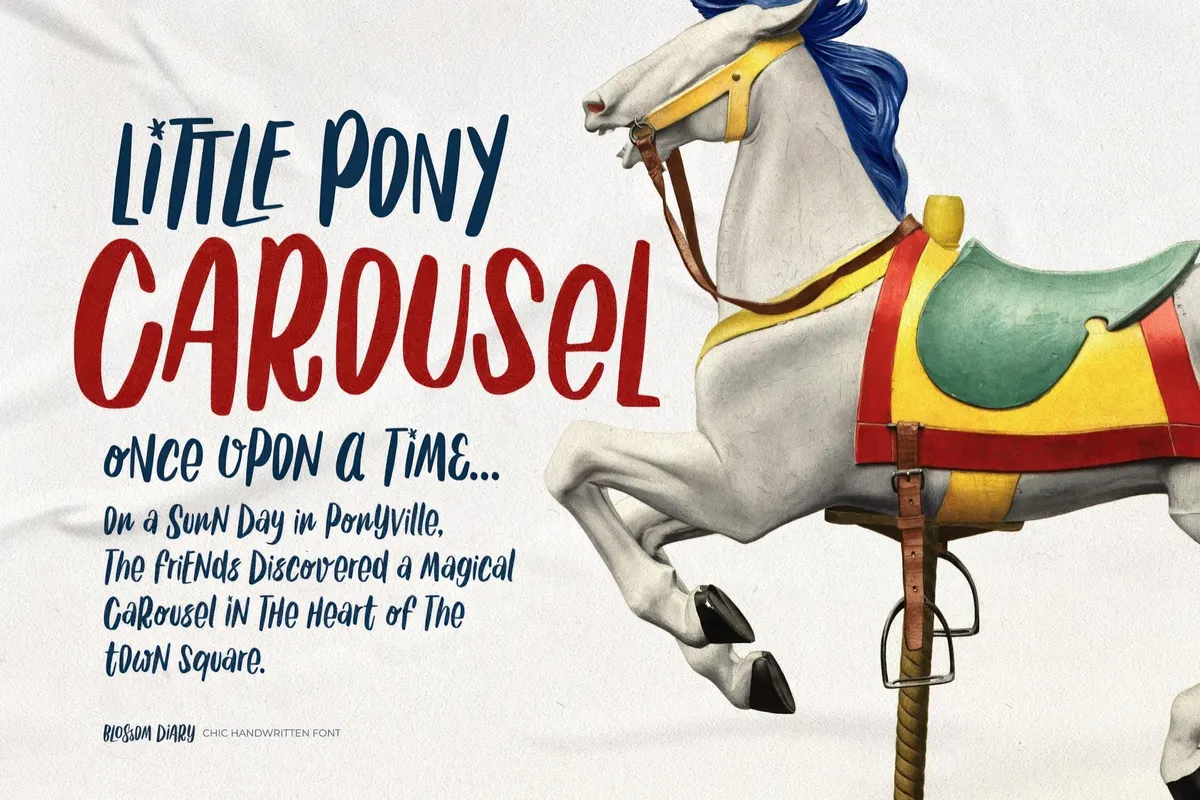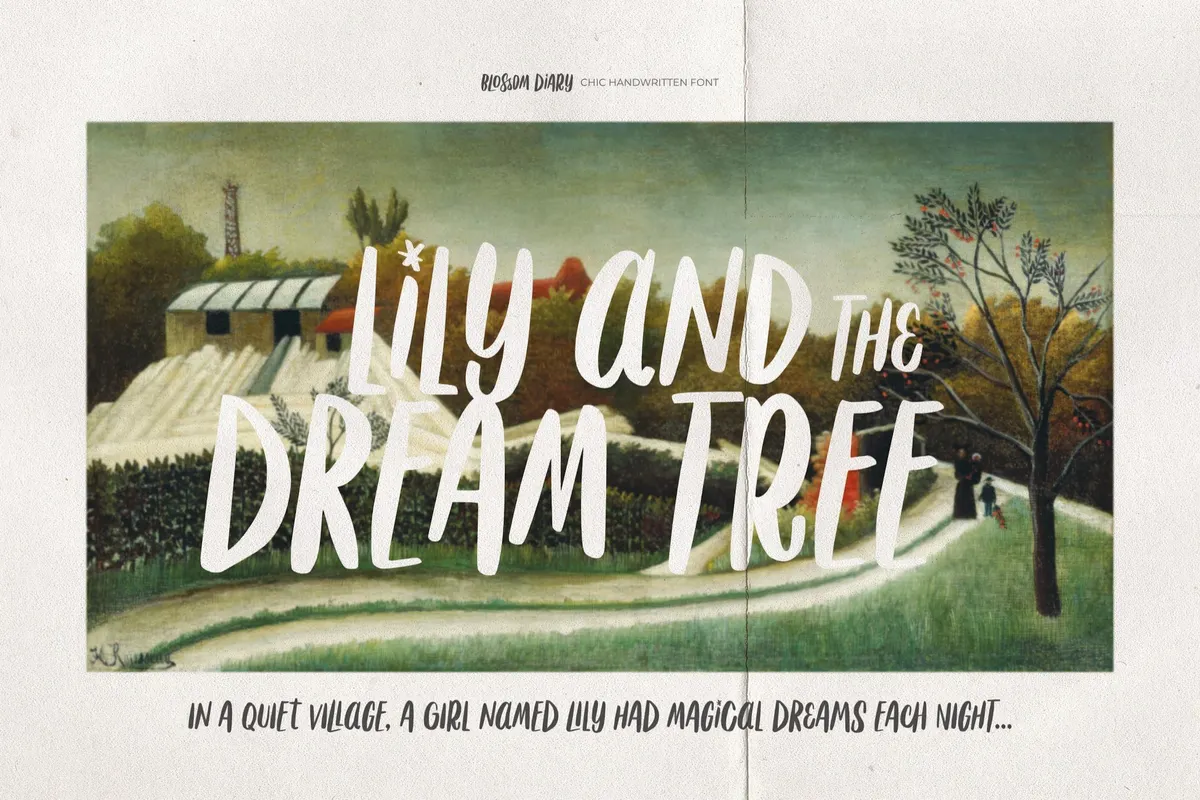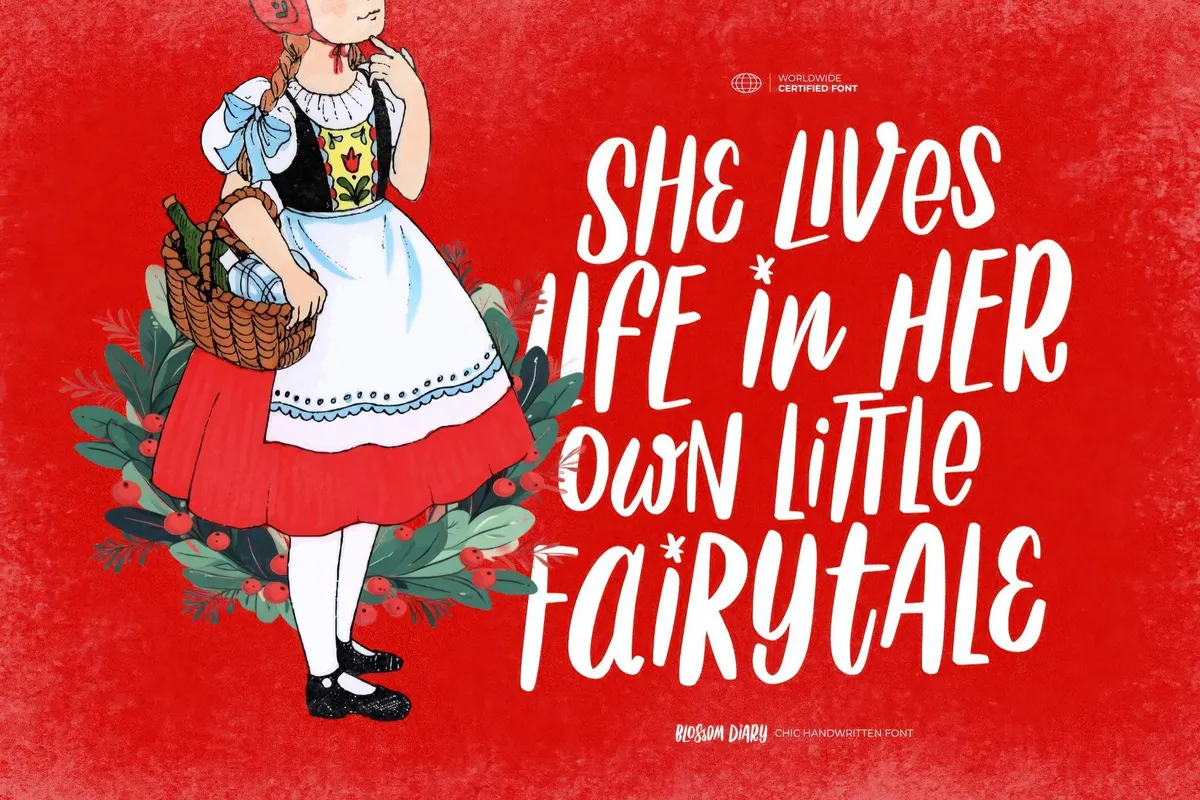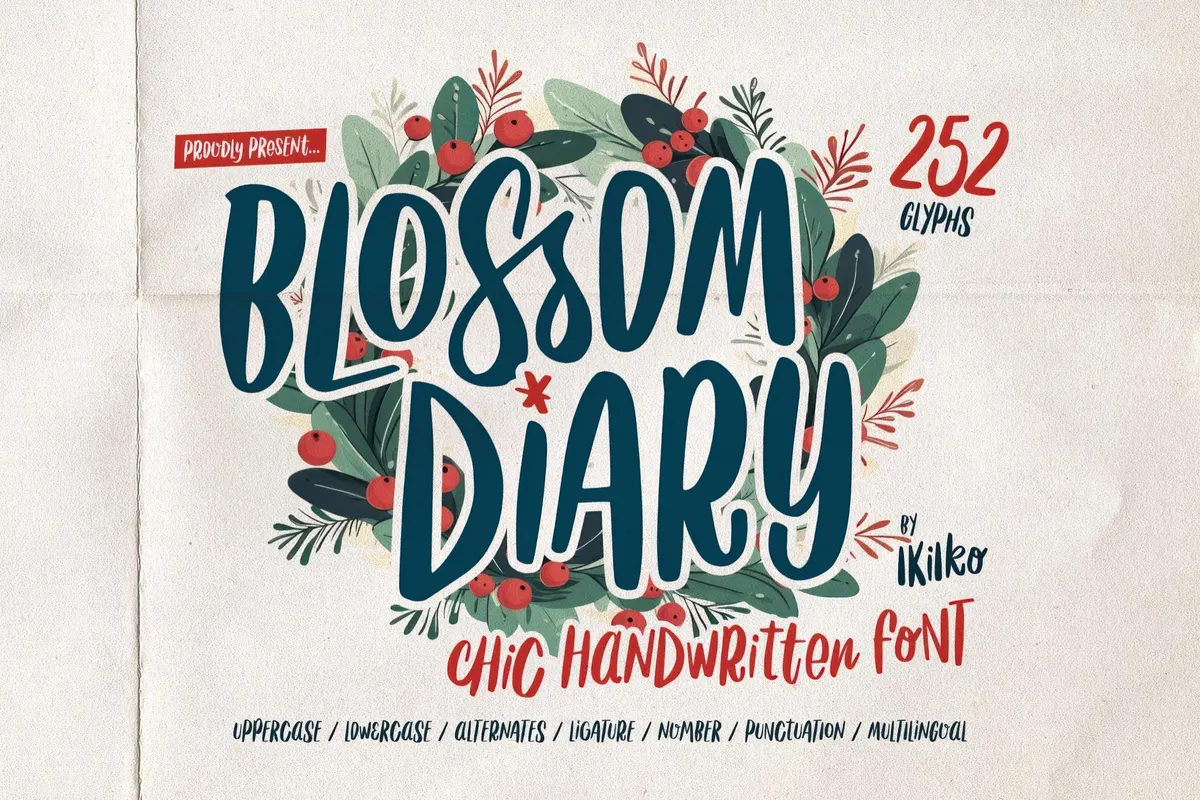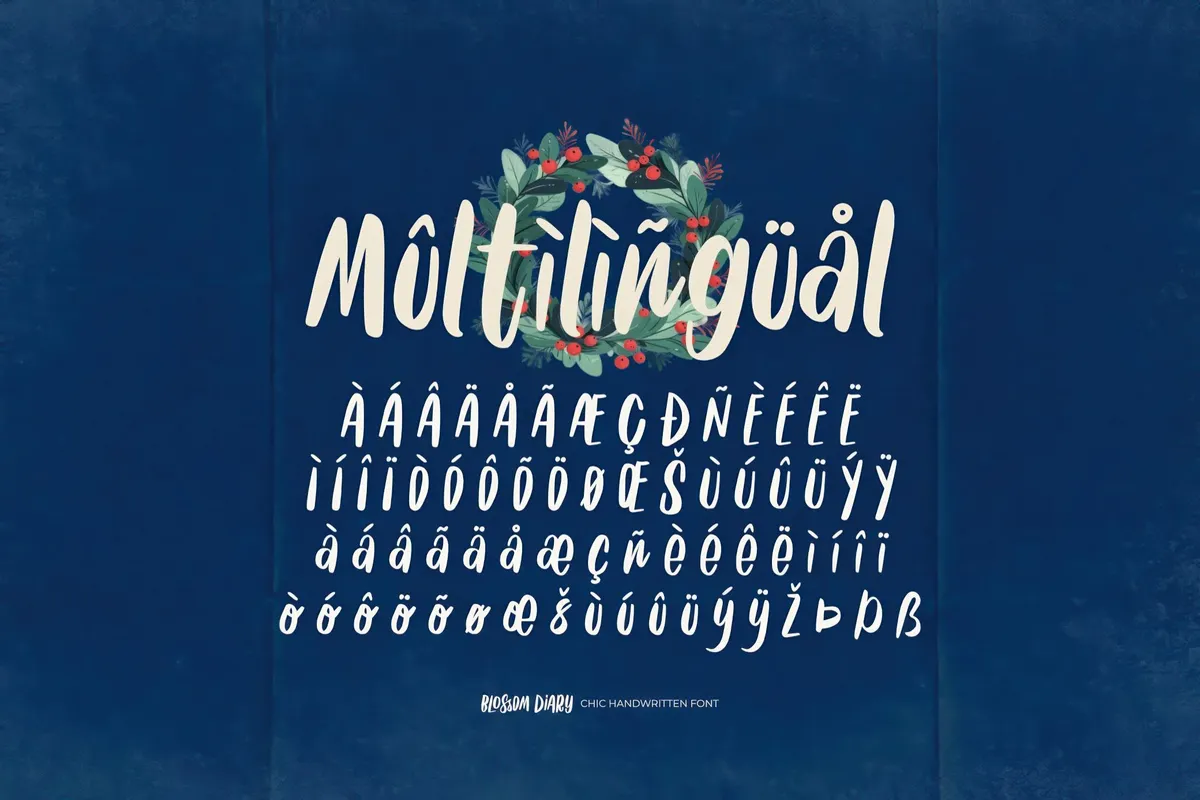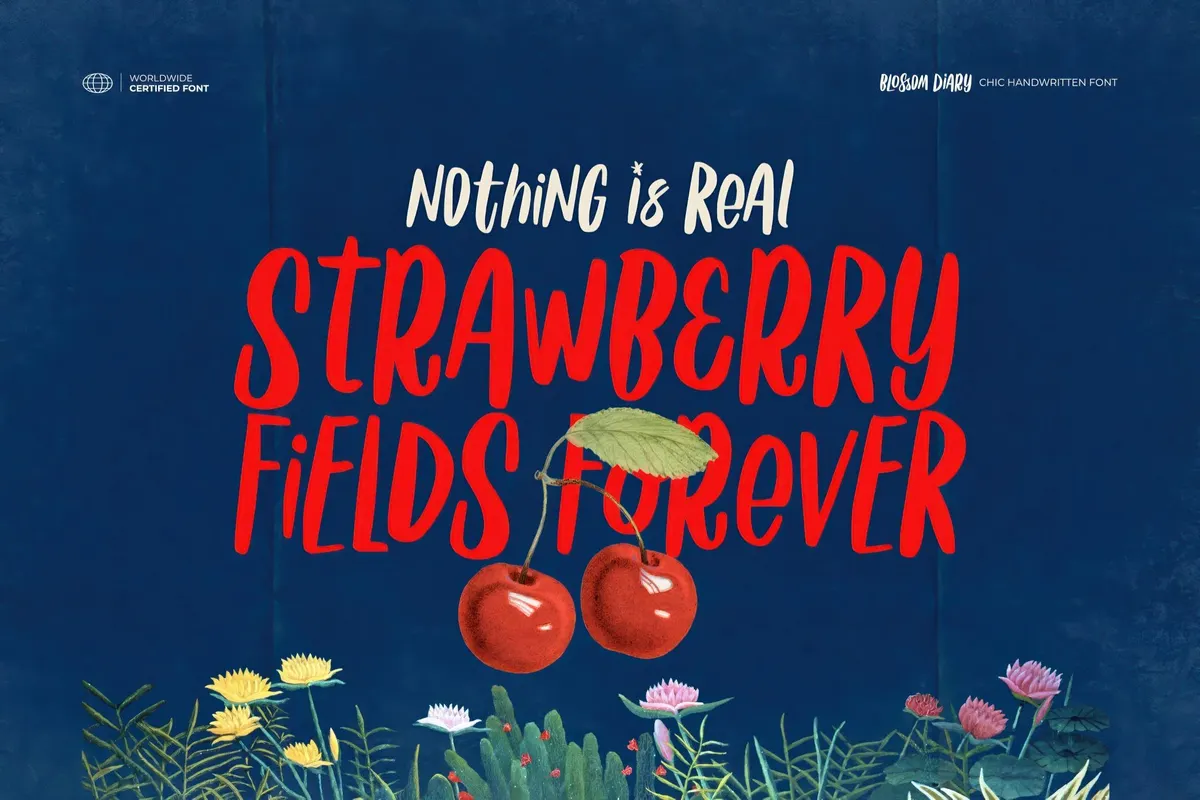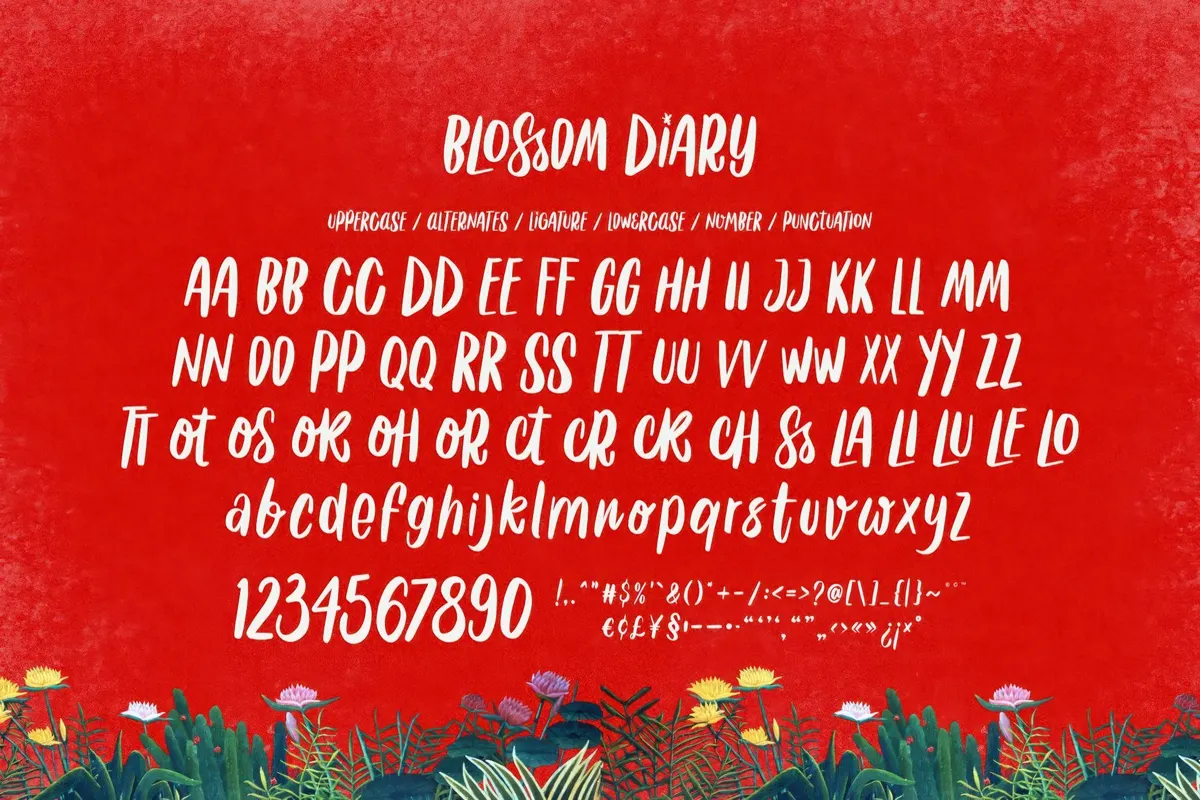
Blossom Diary — Handwritten Font
If you ever thought that charm and coziness were barely matchable, take a look at Blossom Diary. It blends casual elegance with a playful, personal touch. Its flowing strokes mimic those of a fountain pen, complete with slight imperfections for authenticity and warmth. This stylish simplicity makes it ideal for wedding stationery, feminine branding, social media graphics, and cozy book covers. Blossom Diary has an extensive character set featuring uppercase & lowercase, numbers, punctuation, alternates, ligatures, and multilingual support to crown it all.